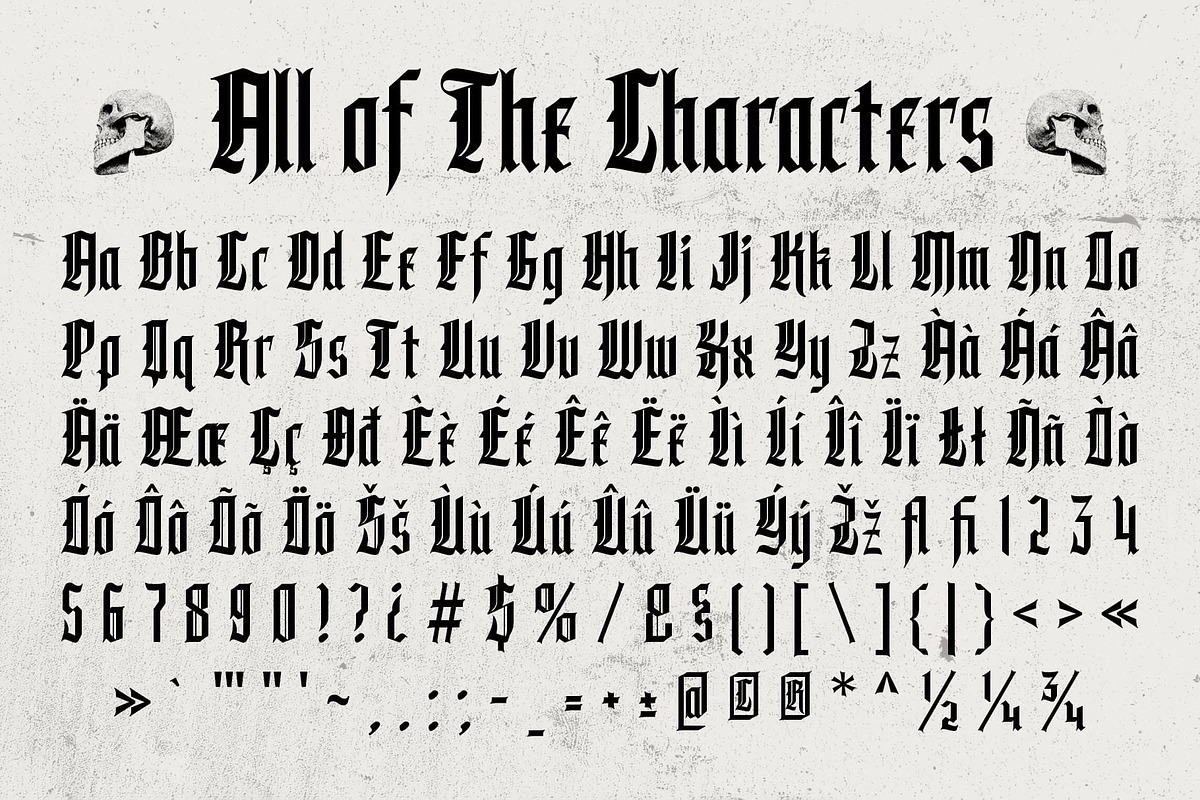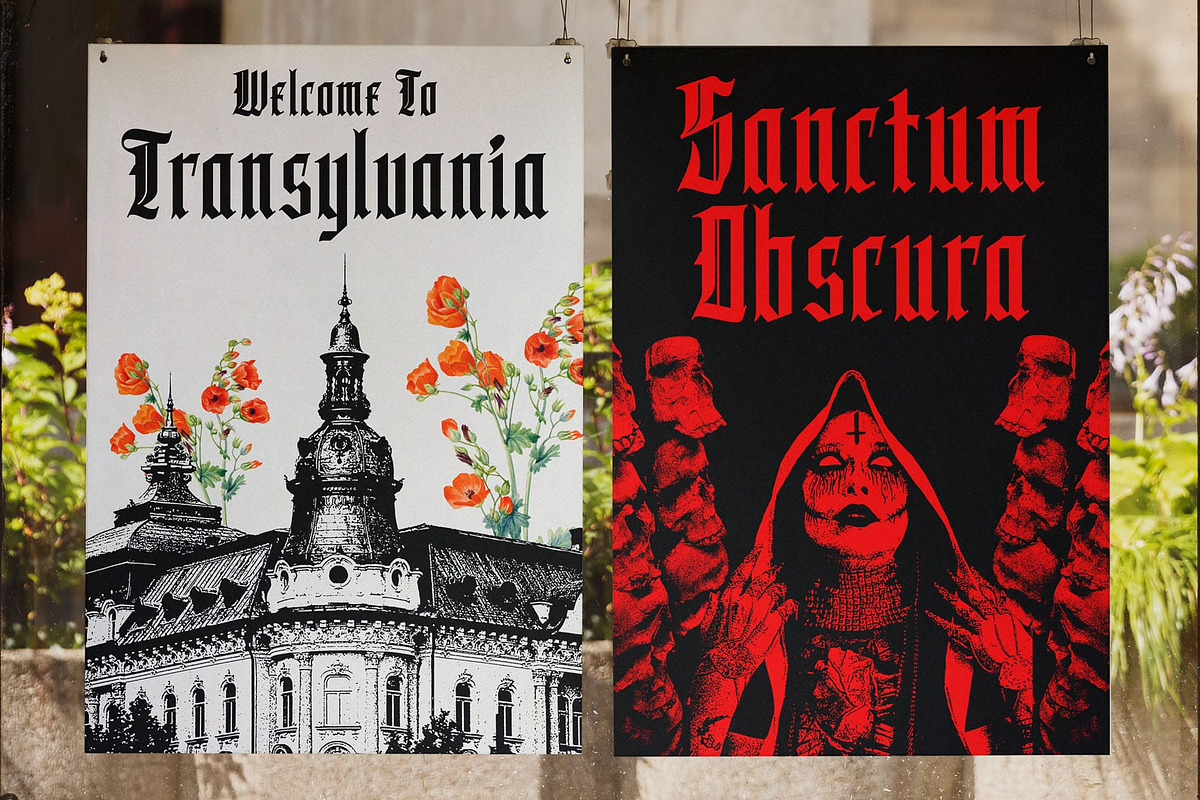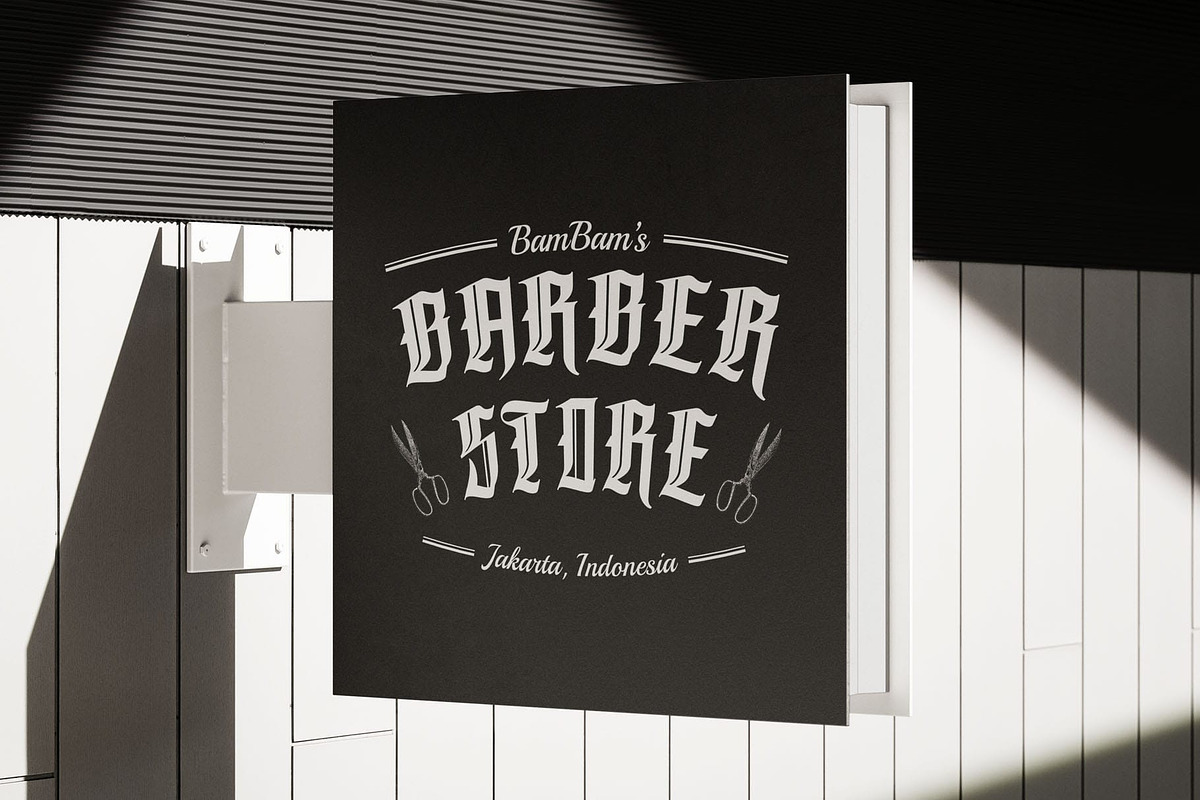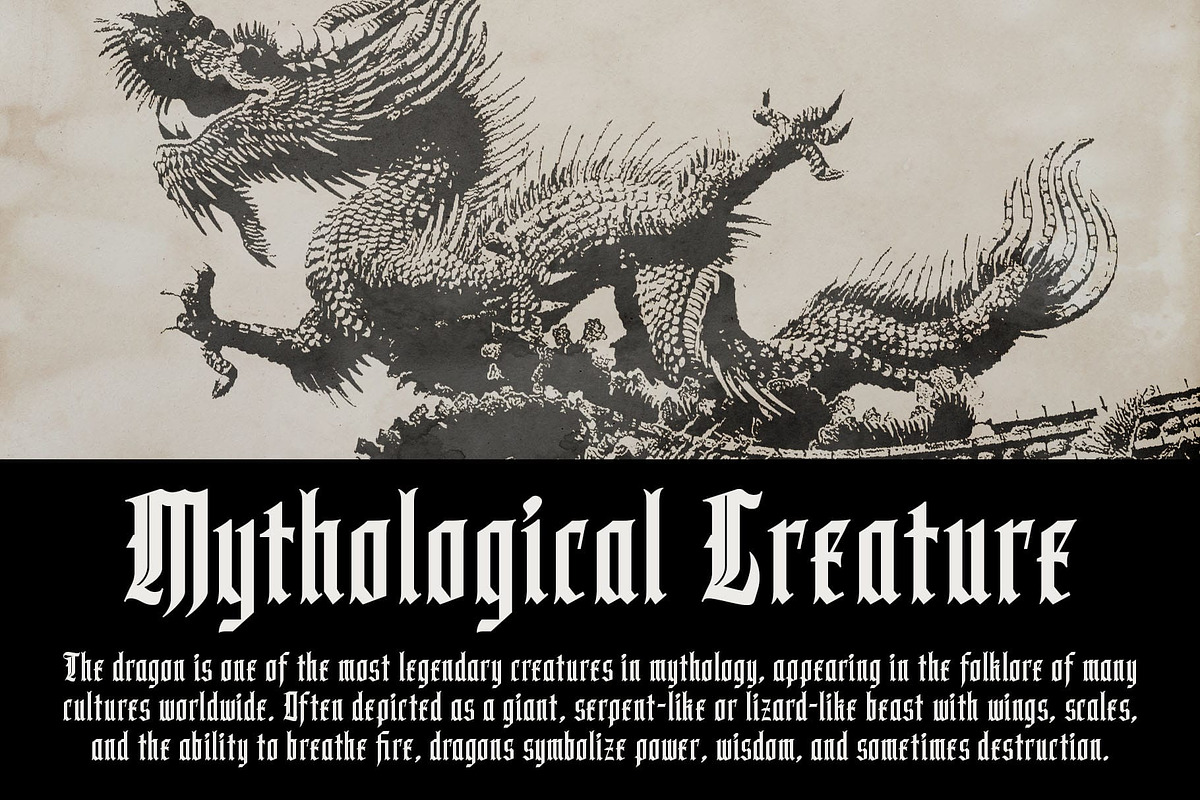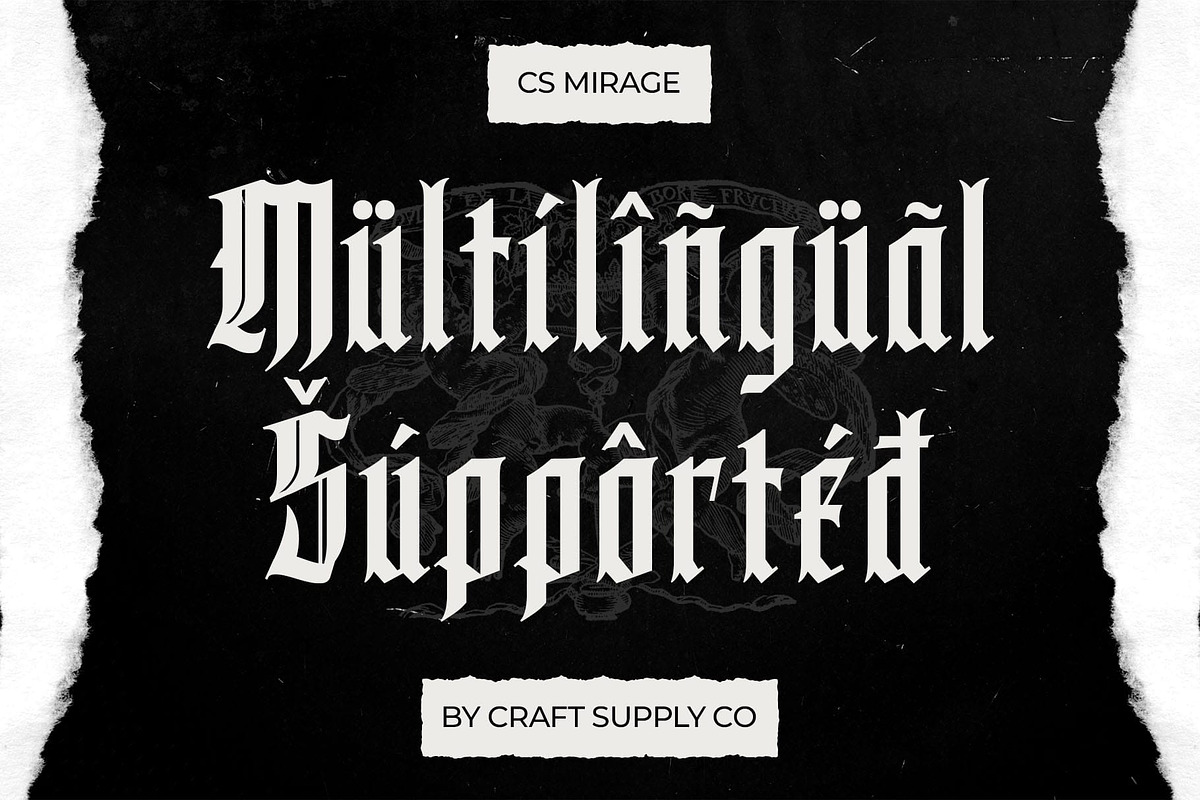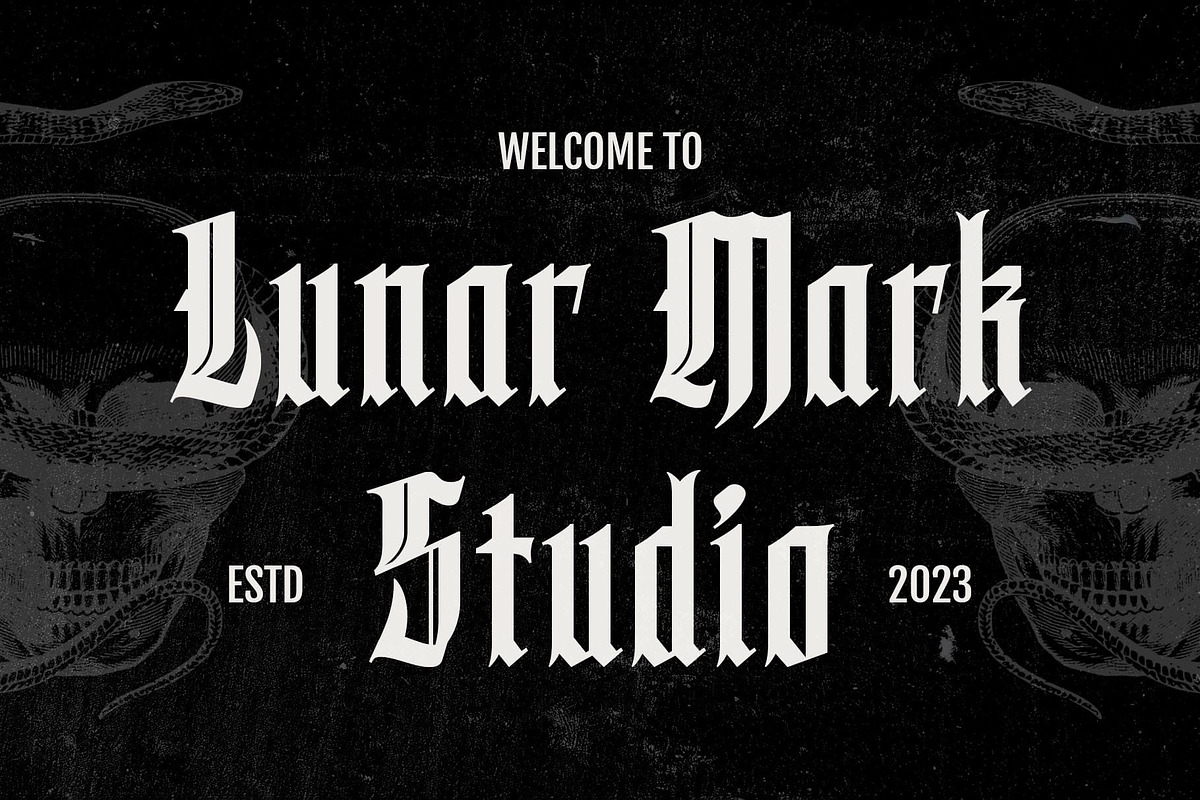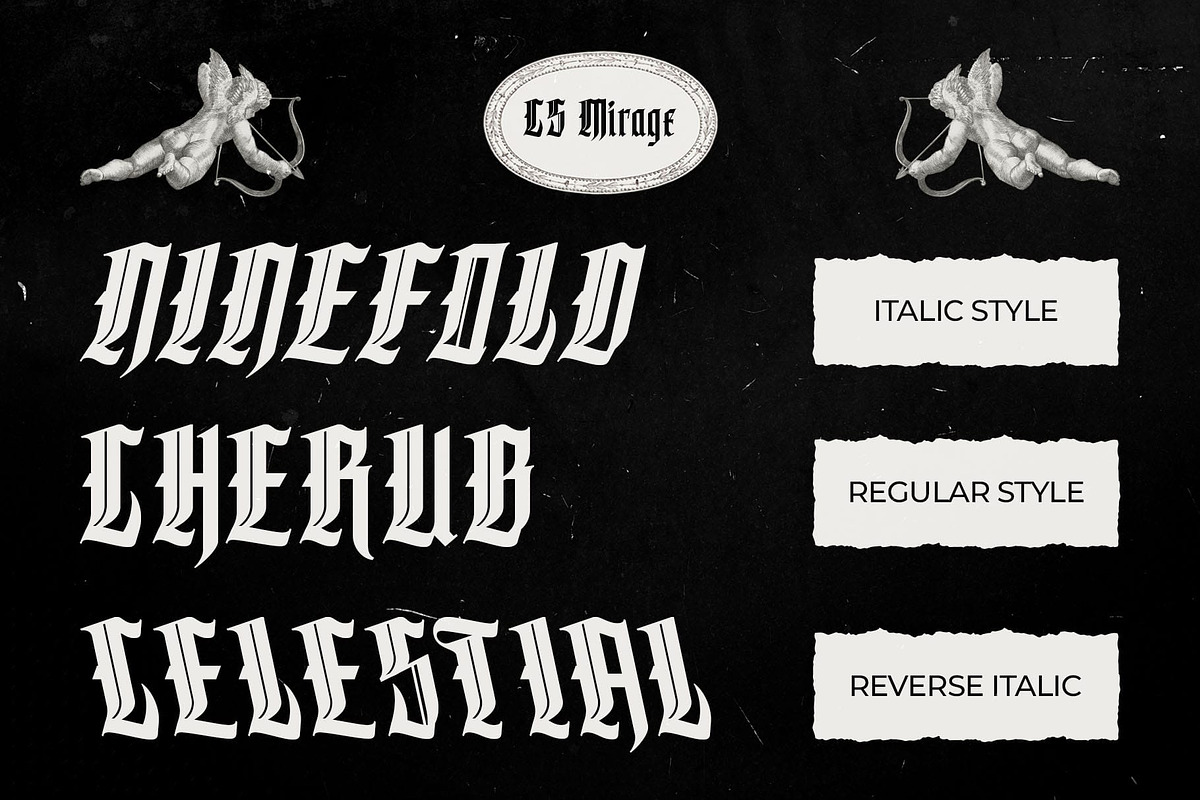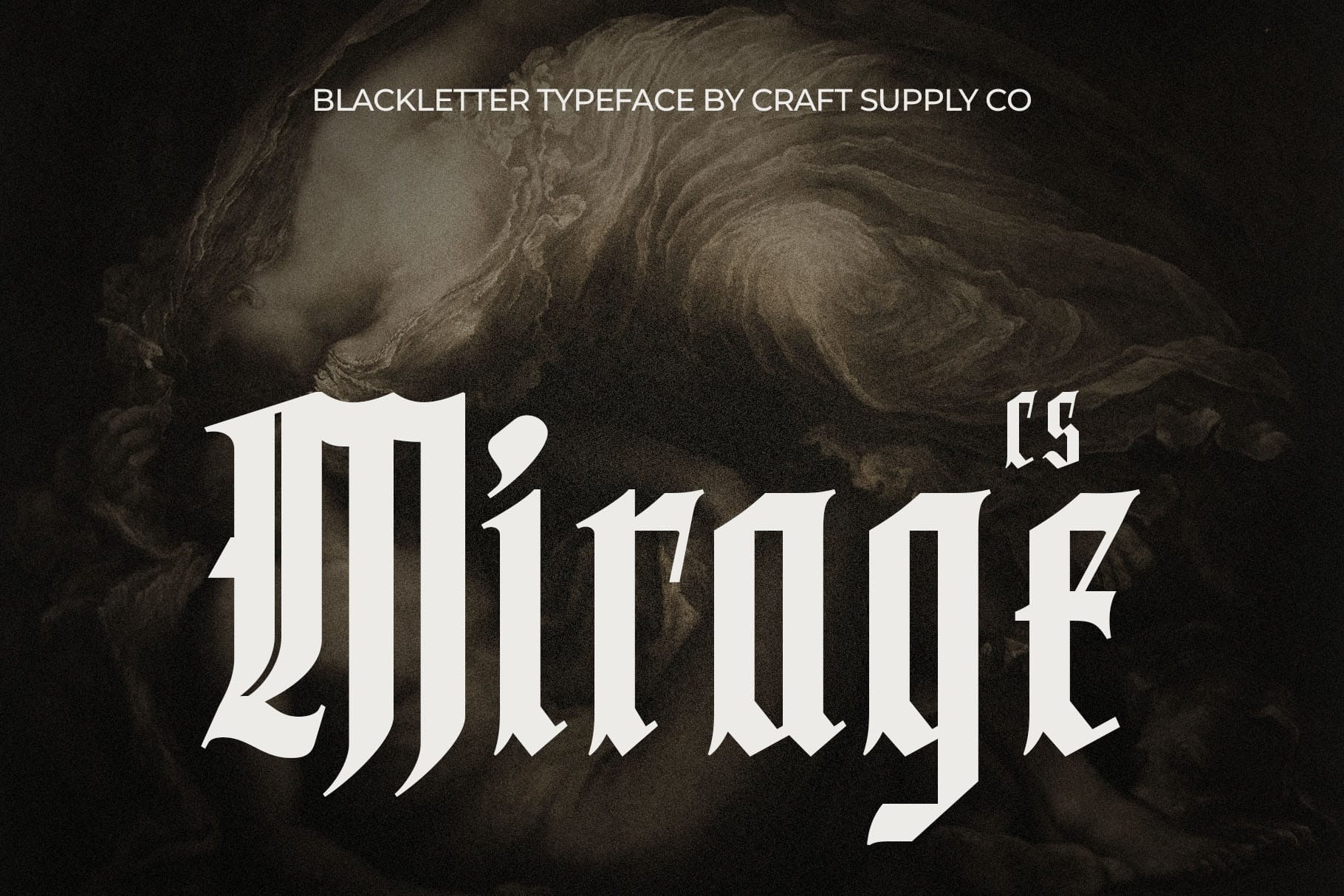
CS Mirage – Blackletter Font
CS Mirage – Blackletter Font: A Bold Fusion of History and Modern Elegance
Distinctive Blackletter Display Font CS Mirage – Blackletter Font is a striking display typeface that combines bold, sharp letterforms with intricate ornamental details. Inspired by classic gothic typography, it brings a sense of history while maintaining a modern, polished appearance. Its dramatic presence makes it perfect for designs that need an authoritative and eye-catching look.
Strong Gothic Presence with a Contemporary Edge With its bold strokes, angular cuts, and elaborate flourishes, CS Mirage captures the essence of gothic aesthetics with a fresh perspective. The carefully crafted details create a commanding visual impact, making it ideal for heavy metal designs, medieval-inspired branding, and statement typography that demands attention.
Rich in Character and Detail Designed with historical depth and artistic sophistication, CS Mirage is more than just a blackletter font—it’s a work of art. The interplay of thick and thin strokes enhances legibility while preserving the intricate elegance of traditional blackletter script. Whether used in large headlines or decorative compositions, it maintains clarity and visual appeal. CS Mirage is incredibly versatile, lending itself to various creative applications. It’s perfect for branding, editorial layouts, music posters, tattoos, and high-end packaging.
- CS Mirage Regular
- CS Mirage Italic
- CS Mirage Reverse Italic